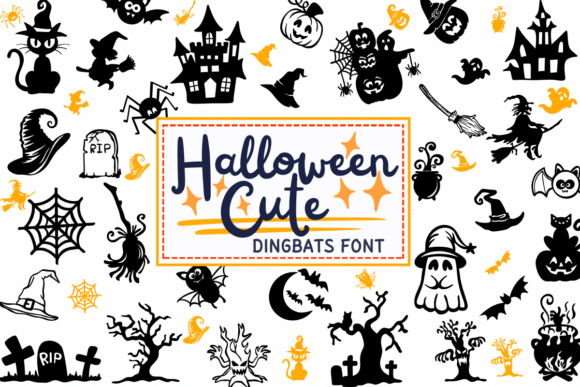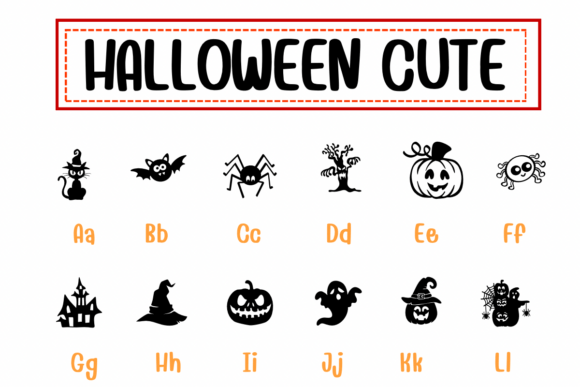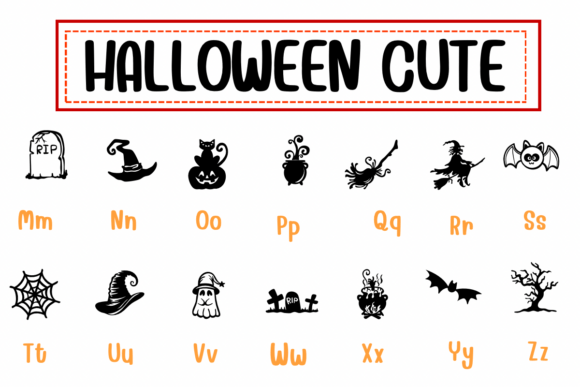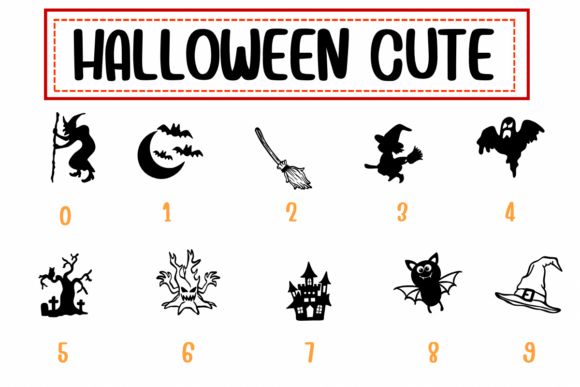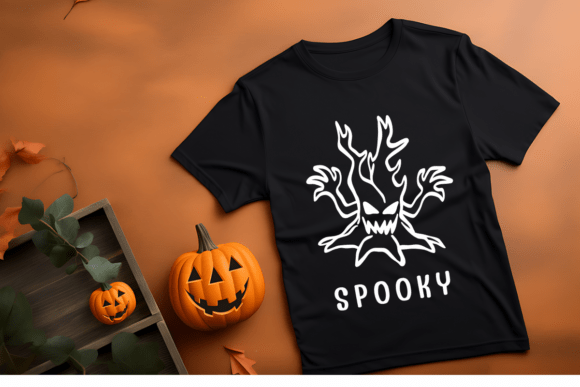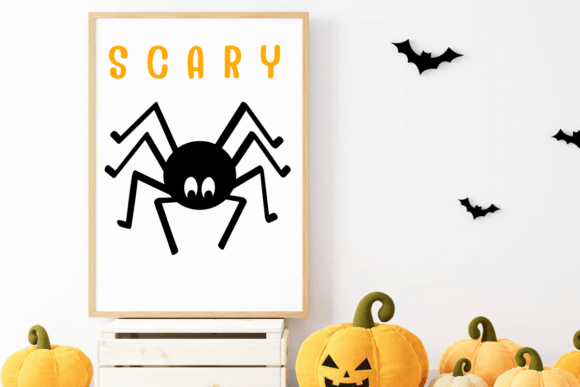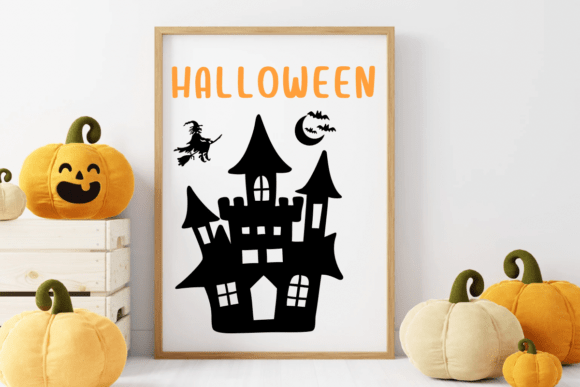
Getting Your Halloween Spirit On
It’s that time of year again when the air is crisp, the leaves are changing colors, and our creativity goes into high gear. As designers, we love diving into seasonal projects that bring a little extra magic to our work. Whether it’s a spooky-themed social media campaign or a set of adorable Halloween party invitations, the possibilities are endless.
One of our favorite fonts for capturing the essence of Halloween is the Halloween Cute Font. This delightful dingbats font is packed with playful silhouettes of ghosts, witches, pumpkins, bats, and more – perfect for adding a touch of whimsy to your designs. For designers looking to add some seasonal flair to their work, the Halloween Cute Font is an absolute must-have.
Halloween Cute Font Key Features
- Font Family: Halloween Cute Font is a unique, hand-drawn font designed specifically for Halloween-themed designs and projects.
- Unique Characteristics: Features adorable, hand-drawn characters with a playful, spooky touch, making it perfect for Halloween-themed designs, invitations, and party decorations.
Halloween Cute Font Review
Overall, I think the Halloween Cute Font has some great qualities, but also some limitations that make it less versatile.
The font’s playful and whimsical feel is perfect for any Halloween-themed project, from invitations to social media graphics. The font’s cute and spooky elements, such as the ghosts and bats, add a delightful touch to any design.
- Perfect for Halloween-themed designs
- Cute and playful feel
- Includes spooky elements like ghosts and bats
The font’s limitations lie in its lack of flexibility and versatility. It’s primarily designed for Halloween-themed projects and may not be suitable for other occasions or designs.
- Limited to Halloween-themed projects
- Lack of flexibility and versatility
- May not be suitable for other occasions or designs
I would give the Halloween Cute Font 3 out of 5 stars. While it’s perfect for Halloween-themed projects, its limitations make it less versatile and less suitable for other designs.
The Halloween Cute Font is perfect for creating spooky and cute designs for Halloween-themed projects, such as invitations, party decorations, and social media posts.